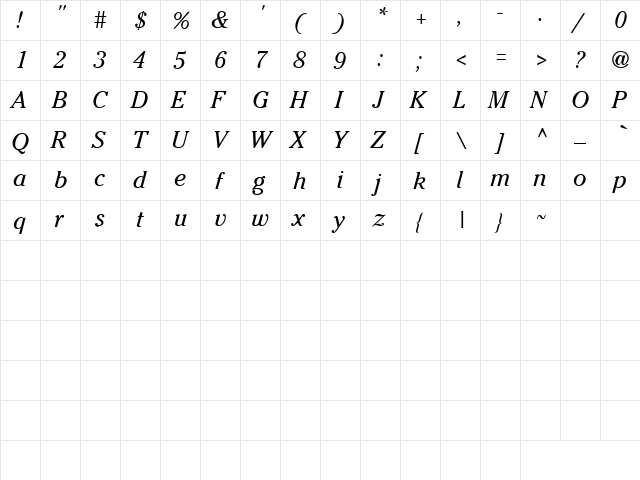
Take It 1 Regular Font Preview
Take It 1 Regular
Design Context for Take It 1 Typeface
Take It 1 takes a measured approach to typography — its balanced proportions and neutral character make it a reliable workhorse for both digital and print work.